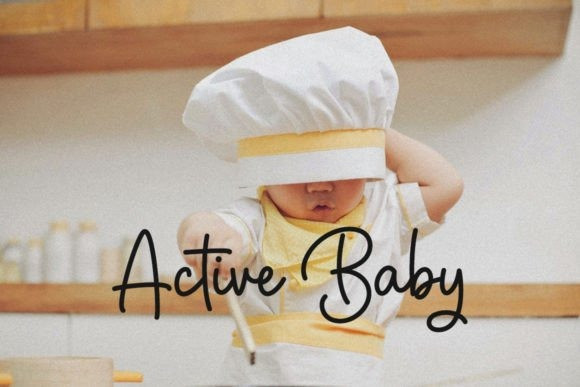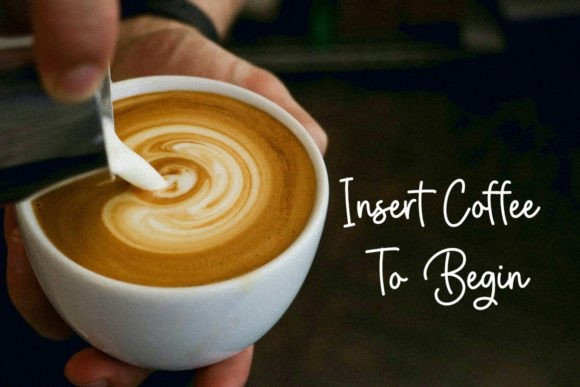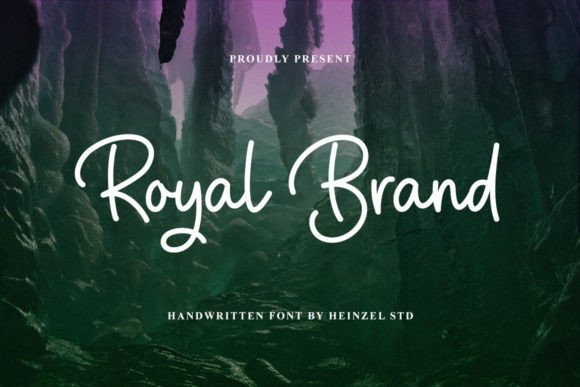
Royal Brand Handwriting Font
Royal Brand Handwriting Font is a flowing handwritten font, described by an elegant touch, perfect for your favorite projects. It looks stunning on wedding invitations, thank you cards, quotes, greeting cards, logos, business cards, and every other design which needs a handwritten touch.